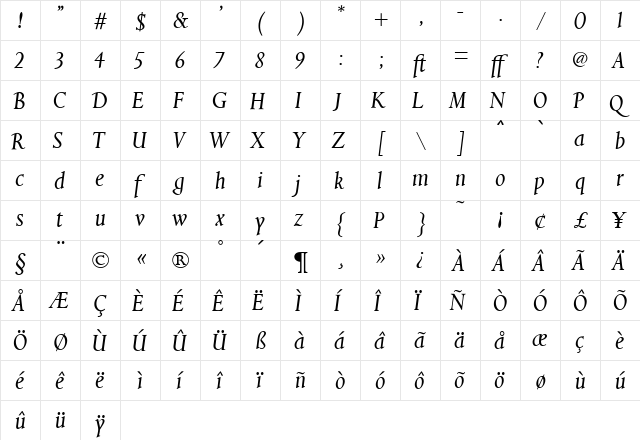
Aries Italic
| Foundry | by Panache Typography, |
Design Context for Aries Typeface
Aries is a composed and adaptable typeface that performs quietly and consistently across a wide range of design contexts. The dynamic lean of this cut emphasises speed and emphasis in any layout.